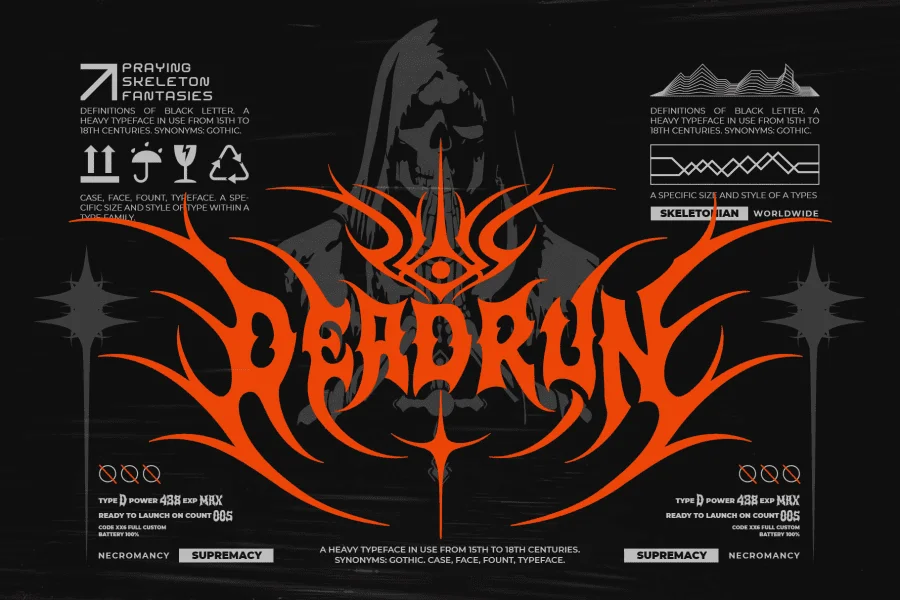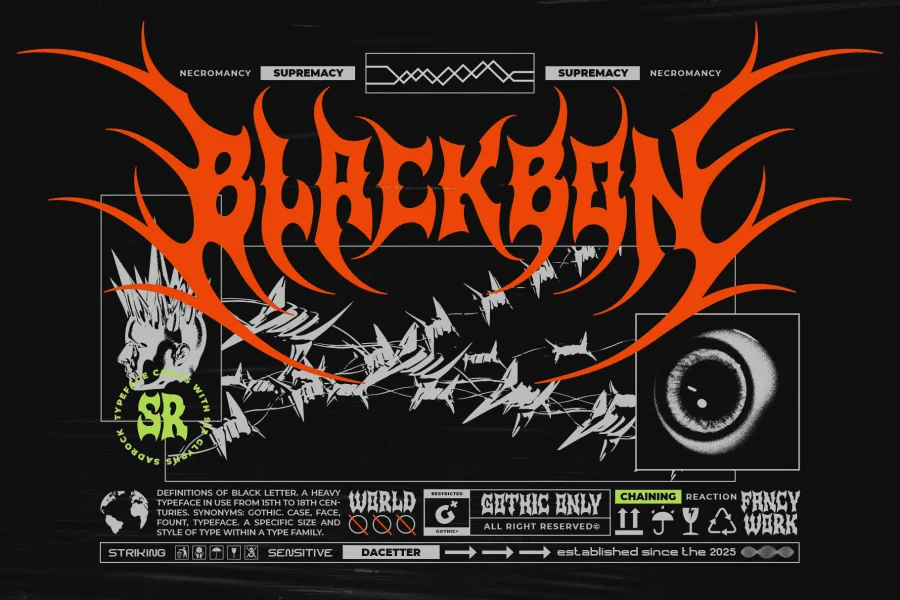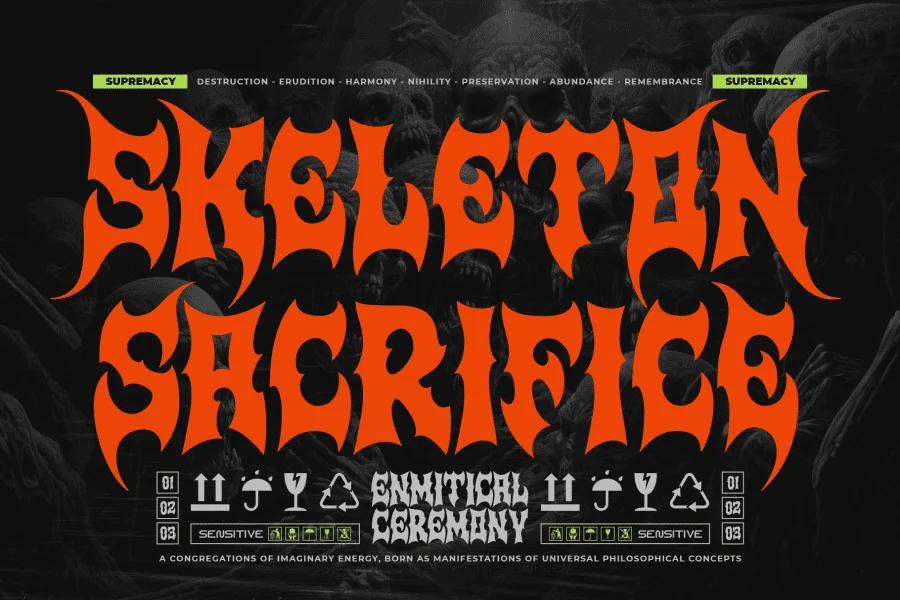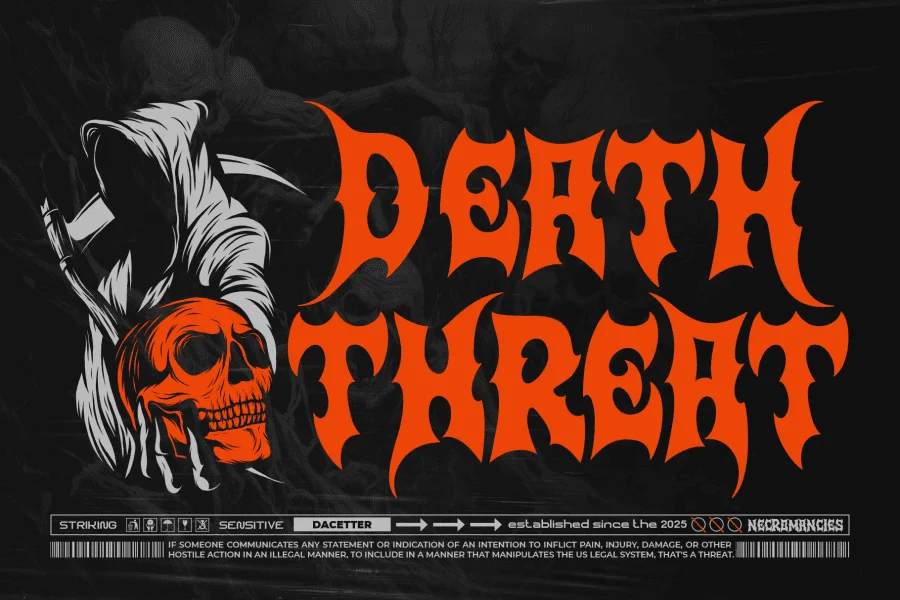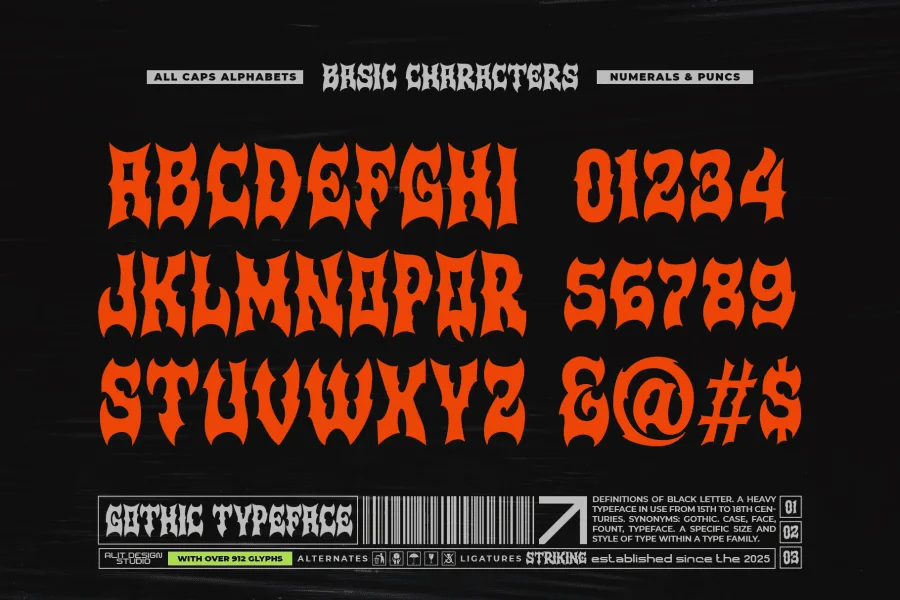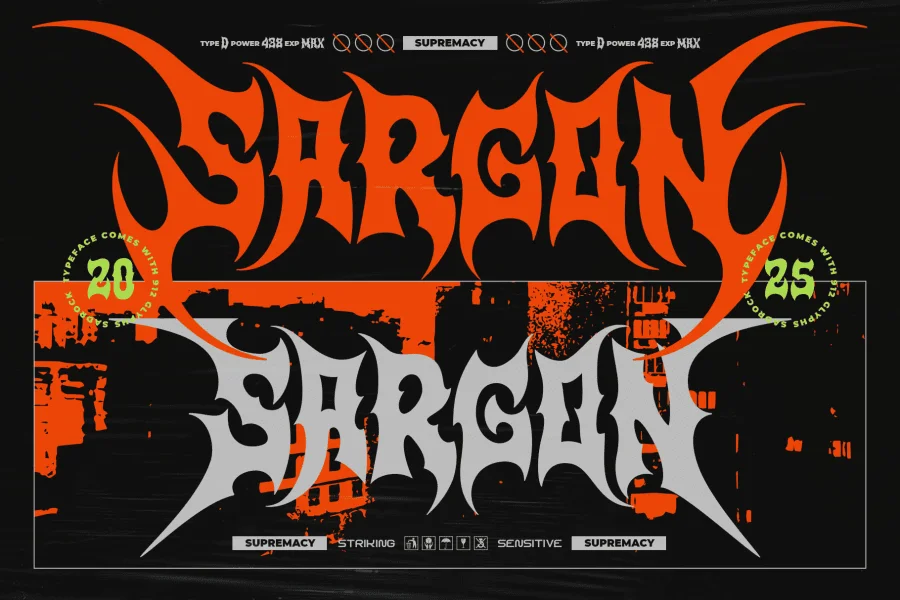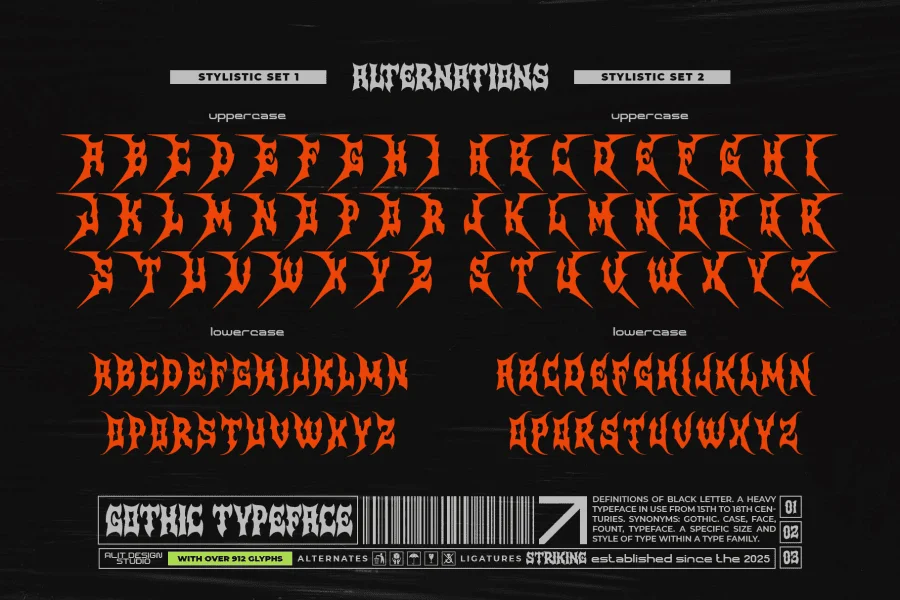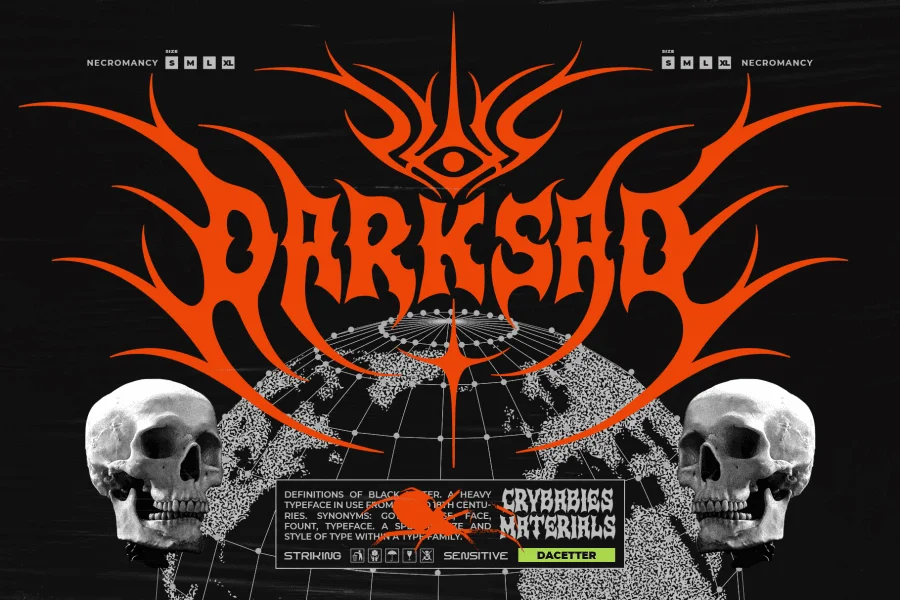
Sad Rock Typeface – The Ultimate Fusion of Metal & Blackletter
Sad Rock Typeface is a bold, dark, and electrifying typeface that blends the raw energy of metal music aesthetics with the elegance of blackletter typography. Designed for those who crave intensity and power in their designs, Sad Rock boasts sharp, thorny details while maintaining strong readability.
This typeface captures the spirit of heavy metal, gothic, and extreme visual styles, making it ideal for band logos, album covers, posters, clothing brands, tattoos, and more. Whether you're crafting a brutal design for a death metal band or a fierce logo for a streetwear brand, Sad Rock delivers an uncompromising typographic presence.